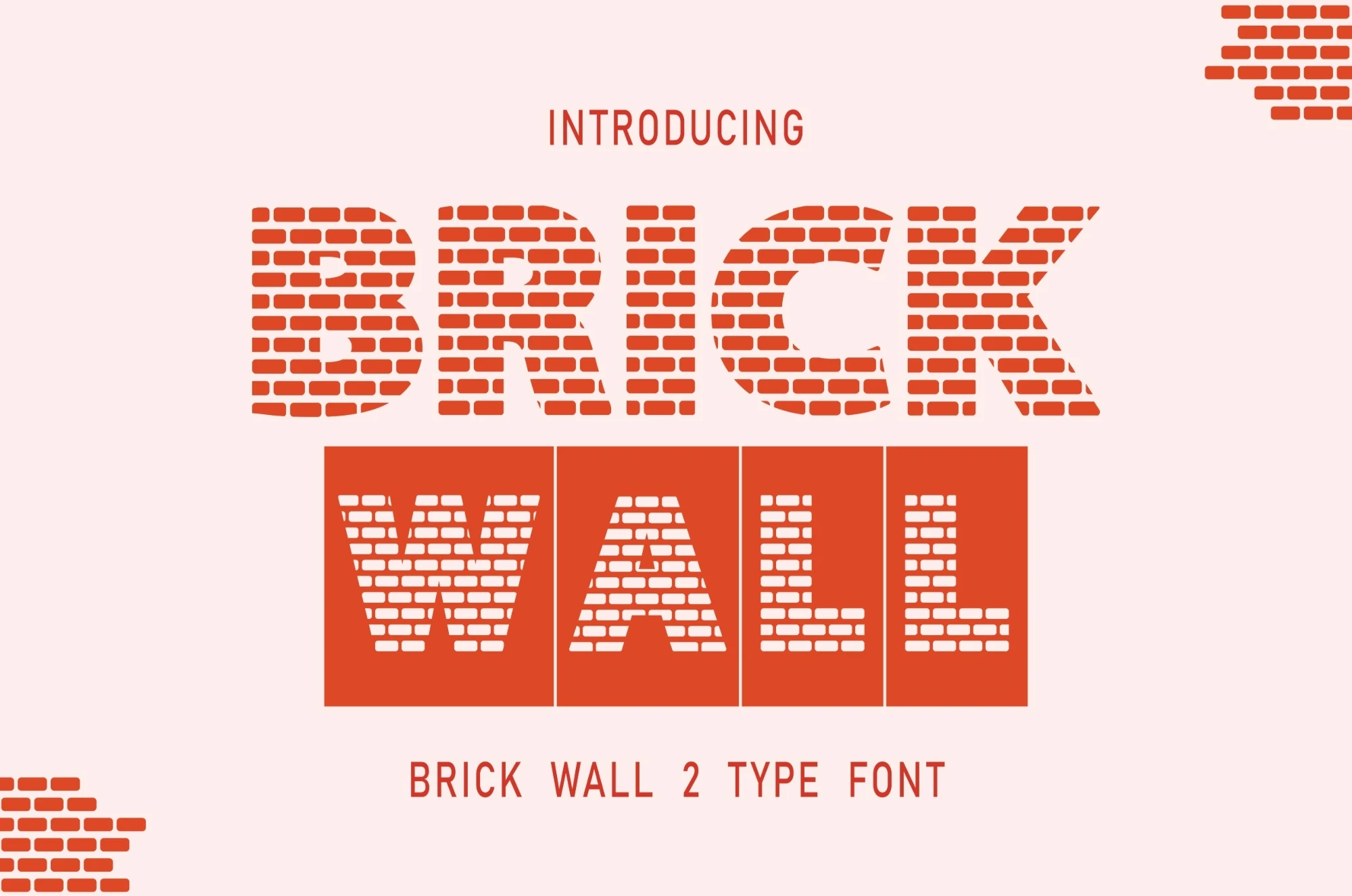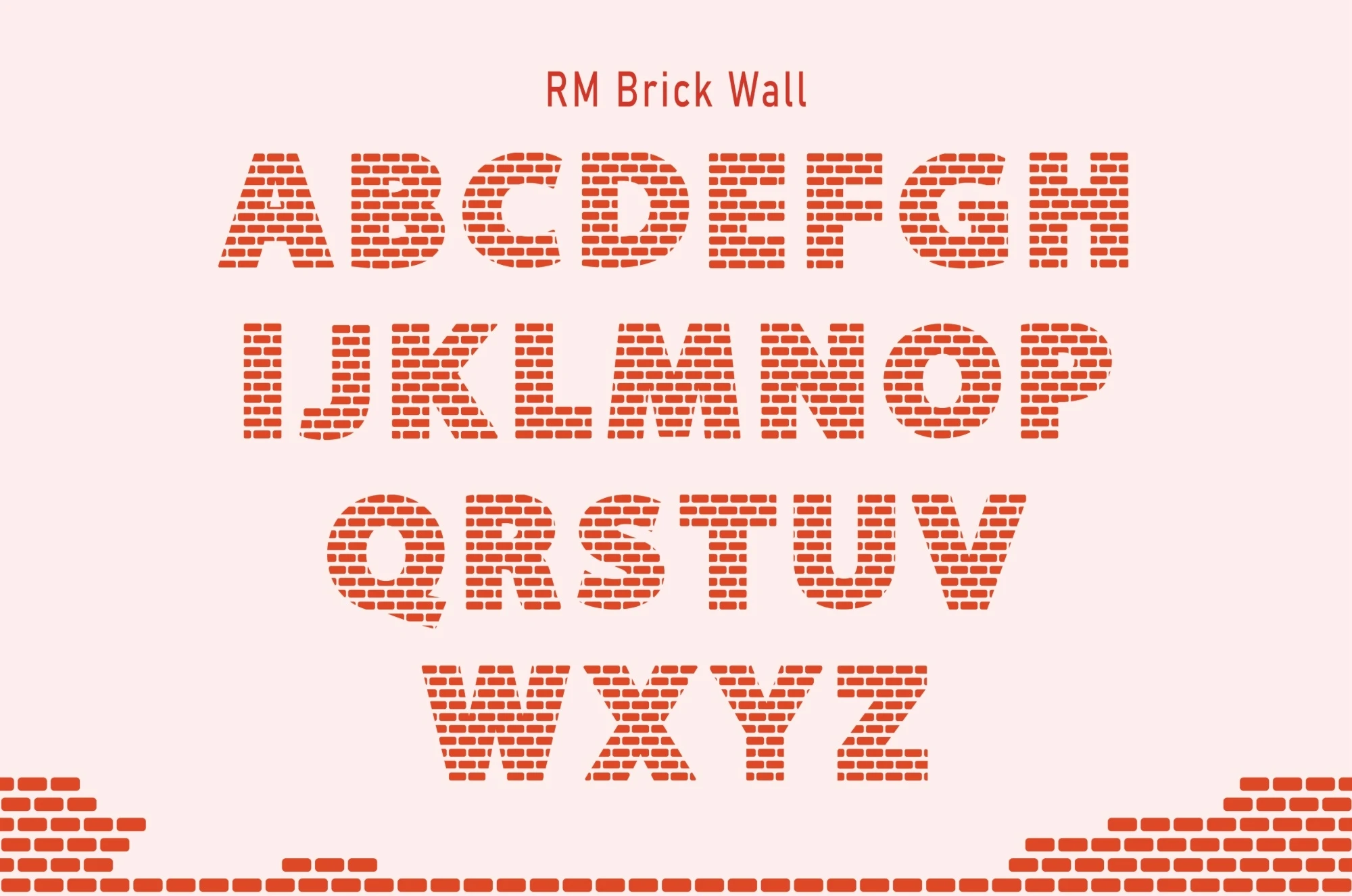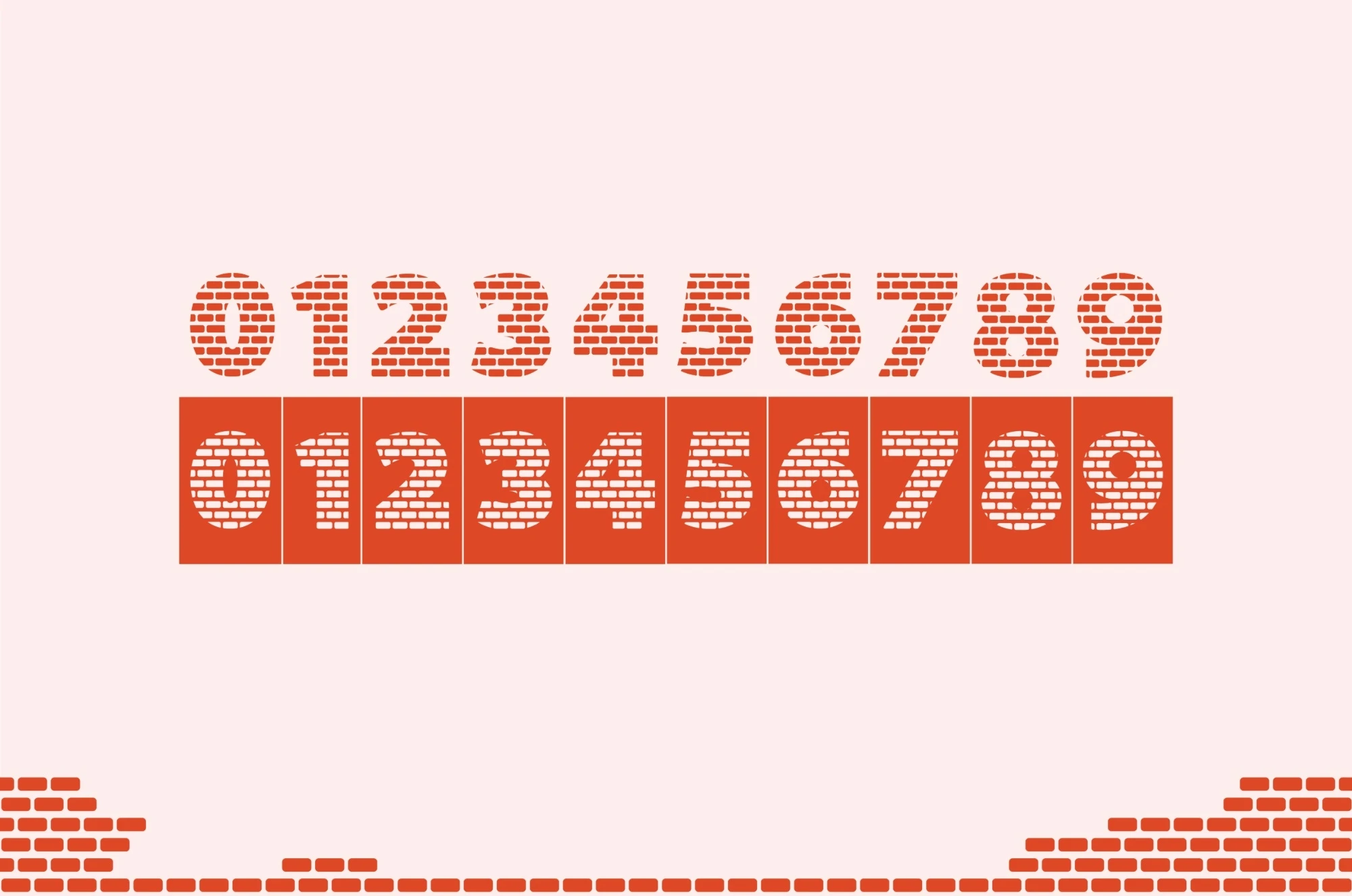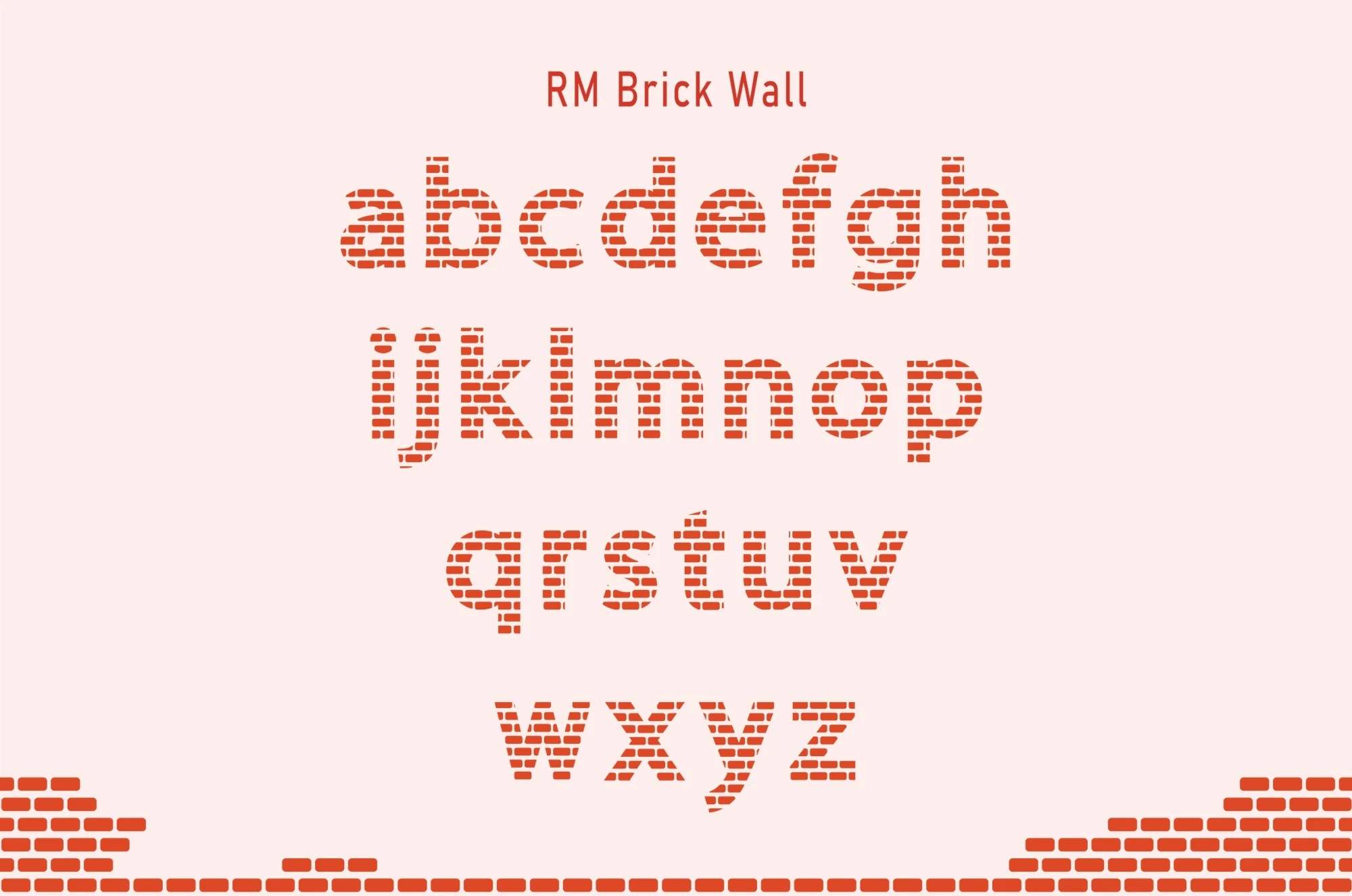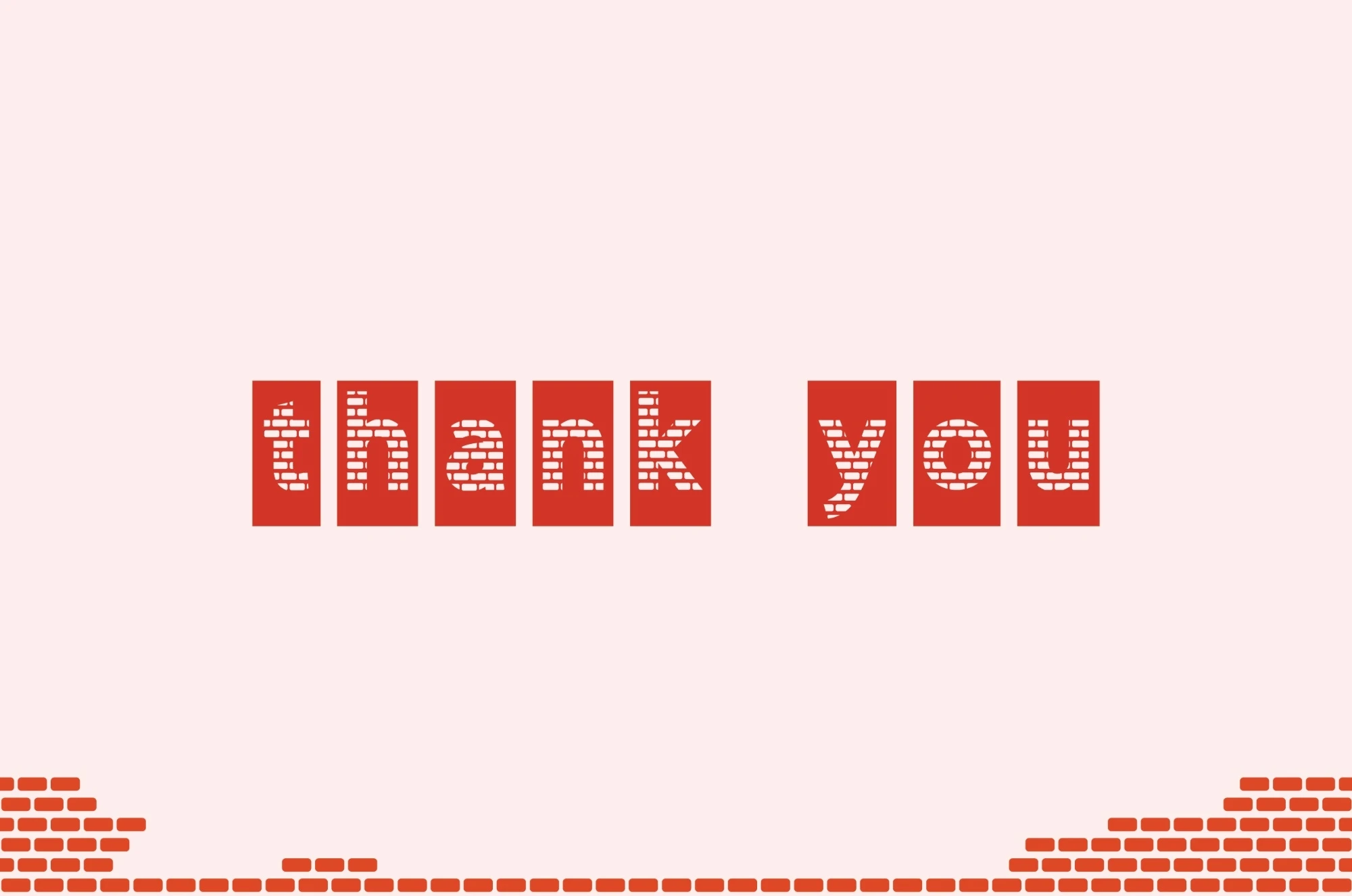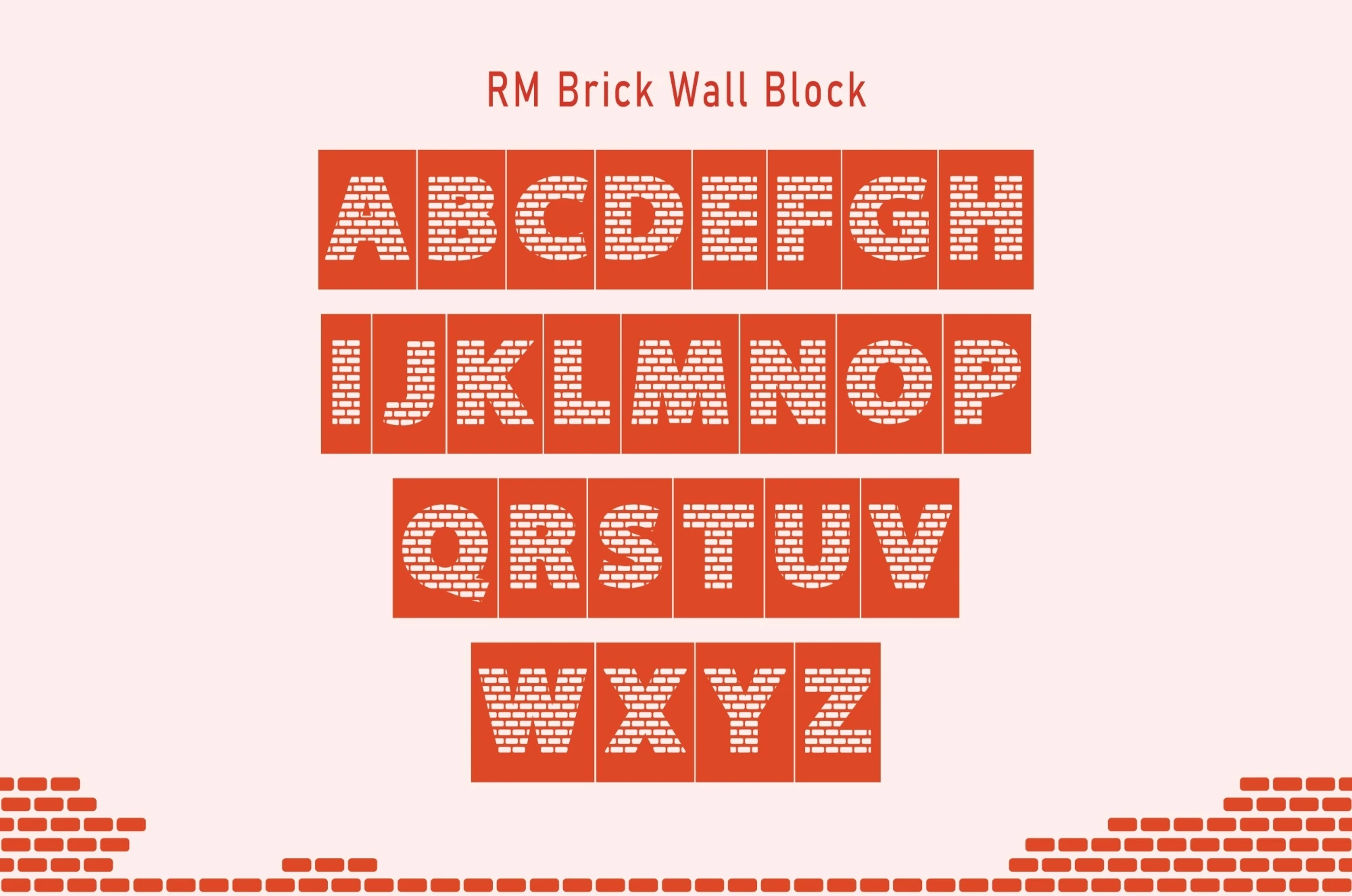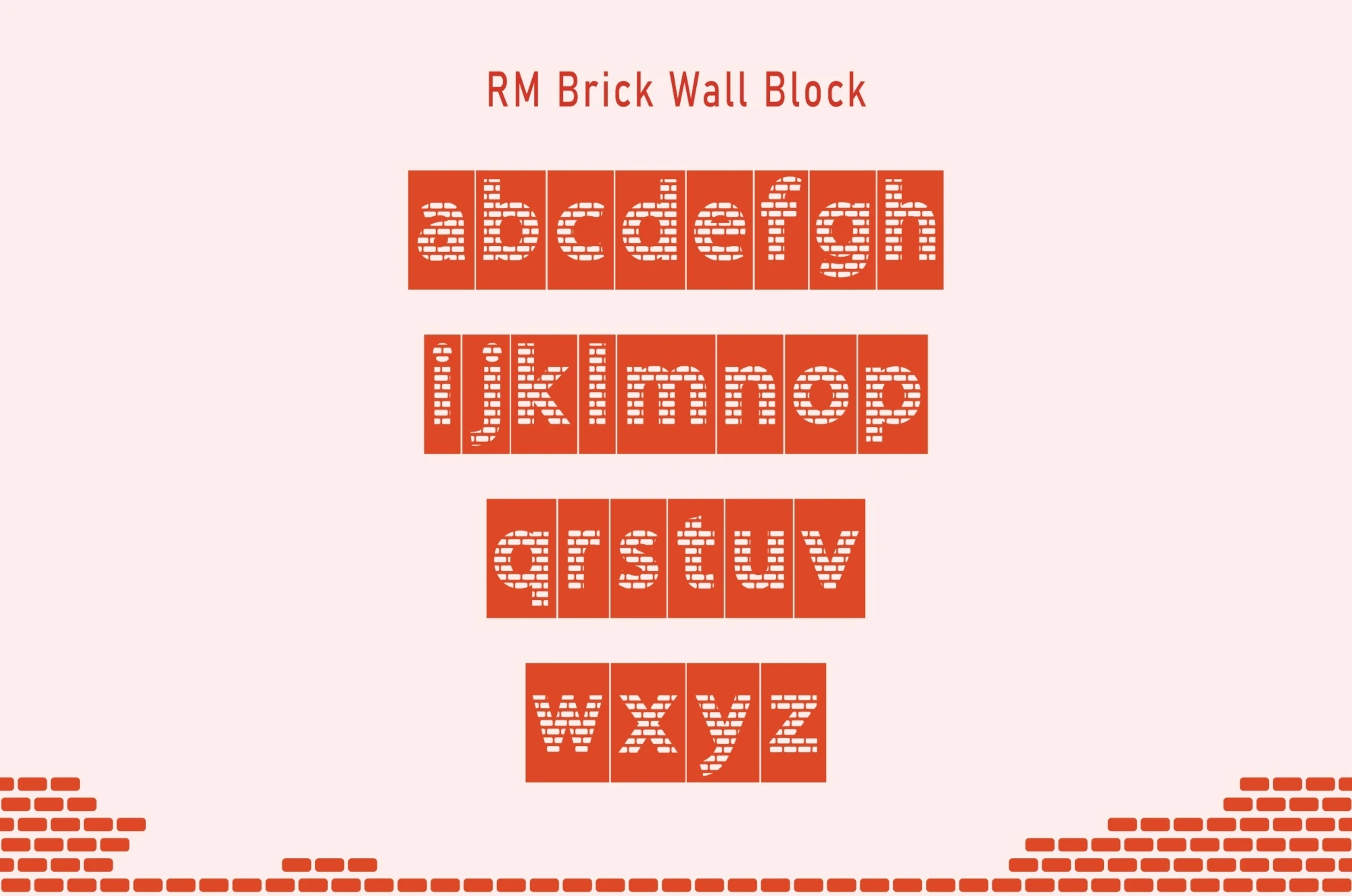
Brick Wall is construction font. Comes with two type font perfect for building concept and engineering concept. This dual-style typeface infuses both building and engineering concepts, seamlessly combining versatility and aesthetic appeal. Brick Wall is ideal for personalizing a variety of items, be it adding charm to your shirts, lending an artistic touch to mugs, or giving tumblers a distinctive look. It's more than just a font, it's your gateway to creative expression. So, build your idea canvas with the Brick Wall font and make every creation a masterpiece.